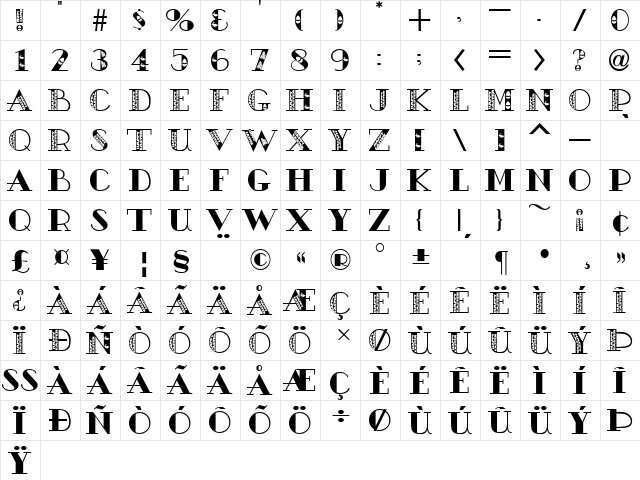
Happy Easter Regular
Design Context for Happy Easter Typeface
Happy Easter is a composed and adaptable typeface that performs quietly and consistently across a wide range of design contexts.